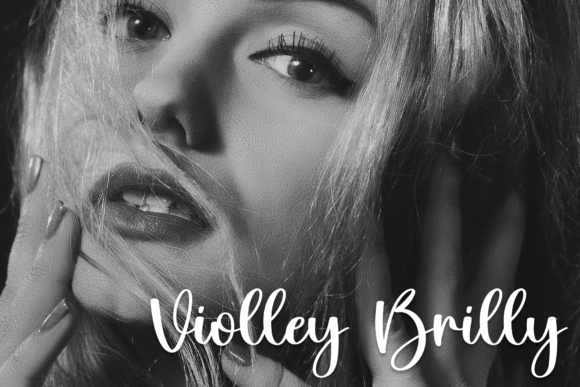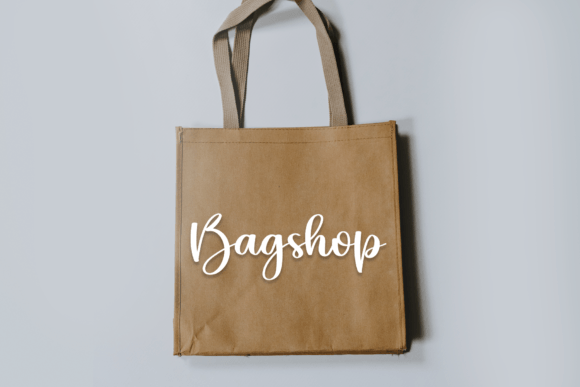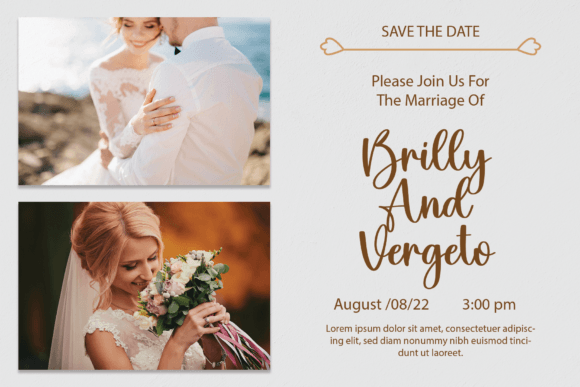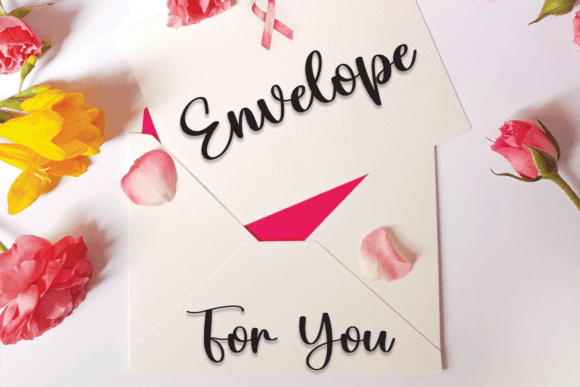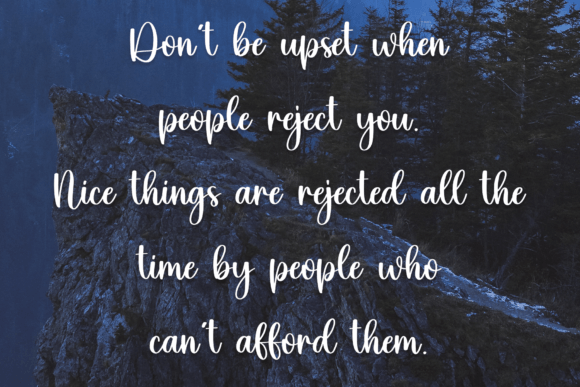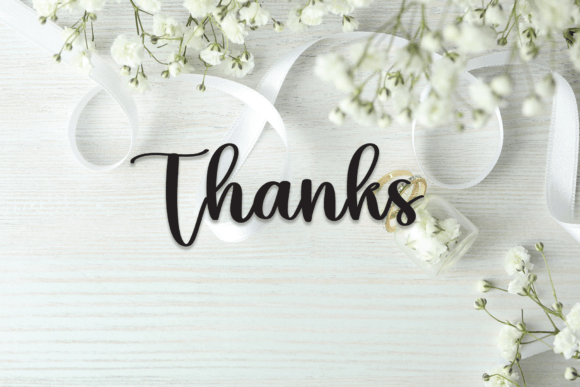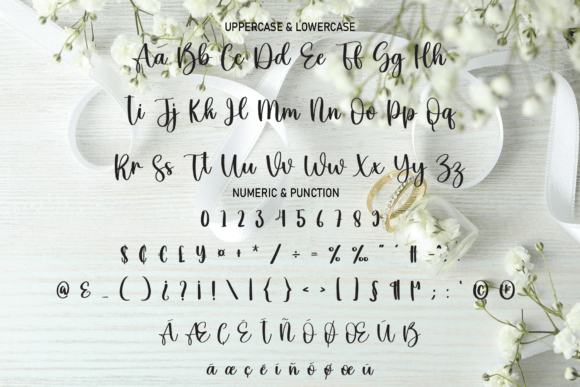
Diamond Font
About Diamond Font
Diamond is a beautiful handwritten font meticulously crafted to provide you with an extraordinary experience. This font is perfect for a wide range of creative applications, including wall displays, wedding invitations, social media posts, logos, advertisements, product packaging, product designs, labels, photography, watermarks, invitations, stationery, and any project that demands a beautiful handwritten touch.
The distinct beauty of Diamond lies in its carefully designed characters, each contributing to an overall aesthetic that is both captivating and elegant. Whether used in digital or print media, this font is versatile and well-suited to add a touch of beauty to your creative endeavors.
Picture Diamond gracing wedding invitations, adding a romantic and personalized feel to the celebration. Envision it on social media posts and logos, where its handwritten charm enhances the brand identity. Imagine it on product packaging, creating a visual experience that resonates with consumers.
The versatility of Diamond extends to various contexts, making it a valuable asset for branding, marketing, and personal projects alike. Its beautiful handwritten touch is designed to leave a lasting impression, ensuring that your designs stand out and make an impact.
In essence, Diamond is not just a font; it’s a tool that enhances your projects with a touch of beauty and elegance. Let it be the choice that transforms your creative endeavors into visually stunning and memorable expressions.